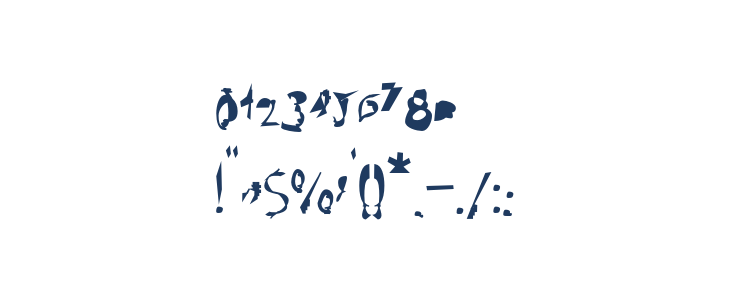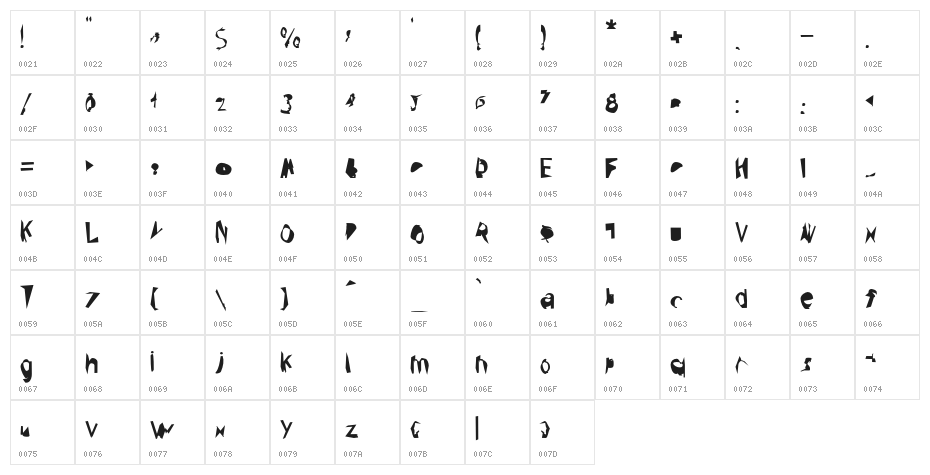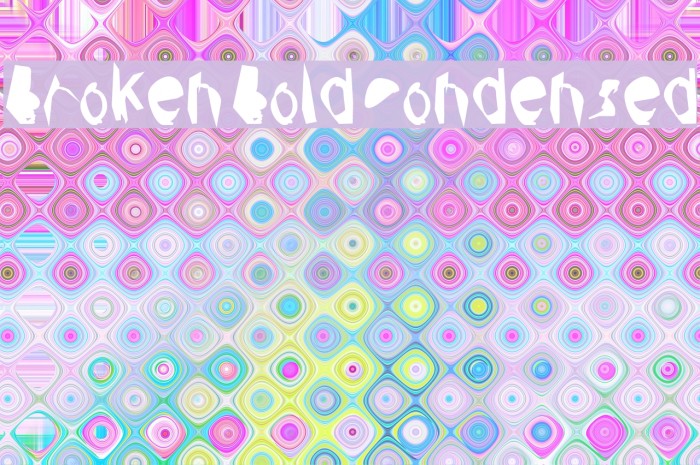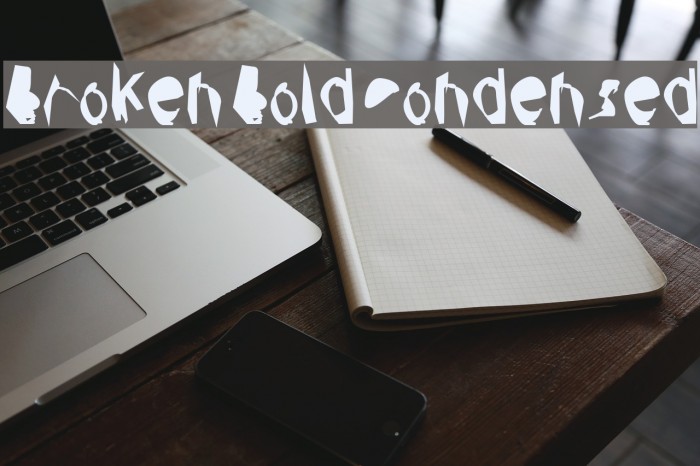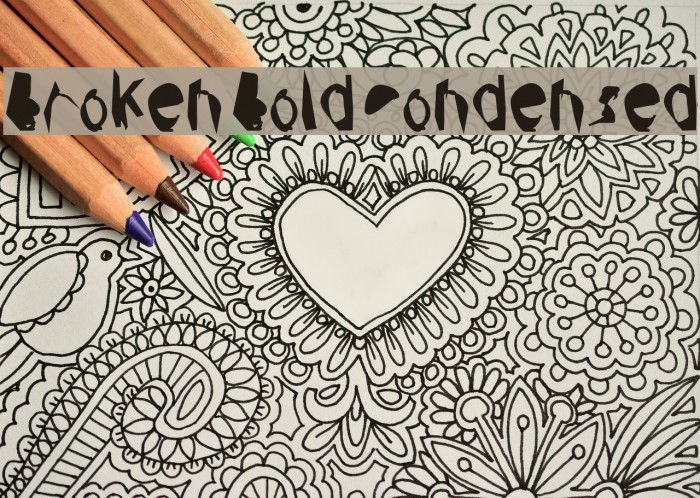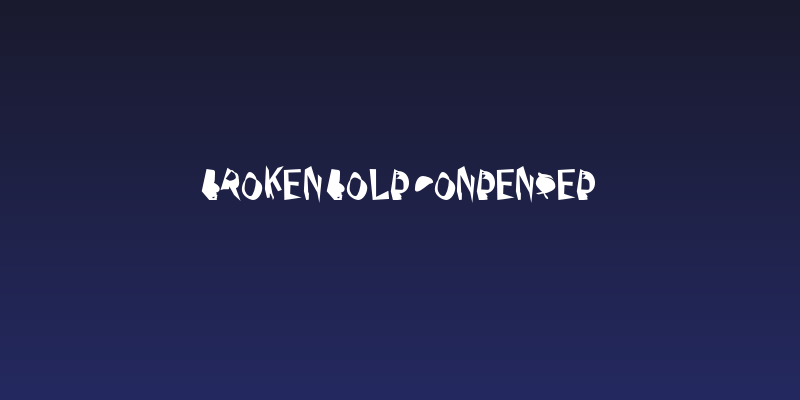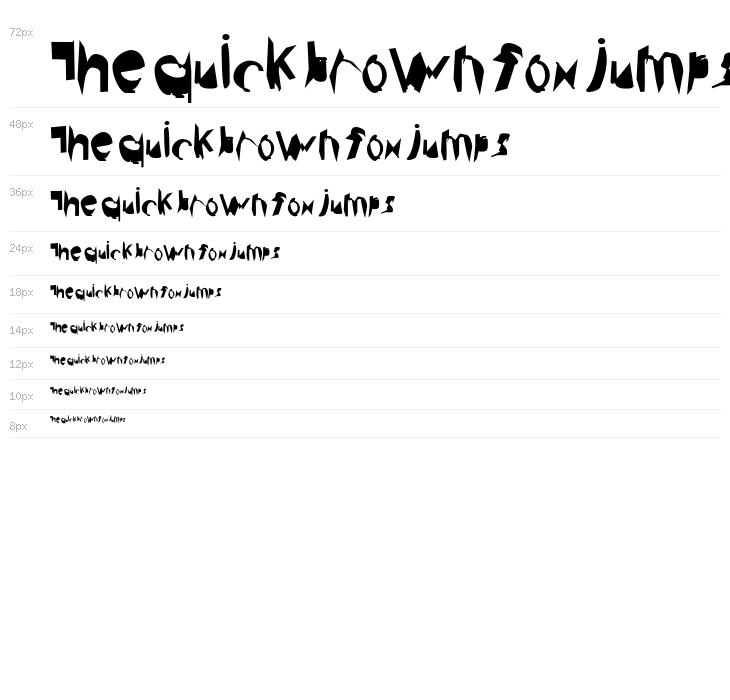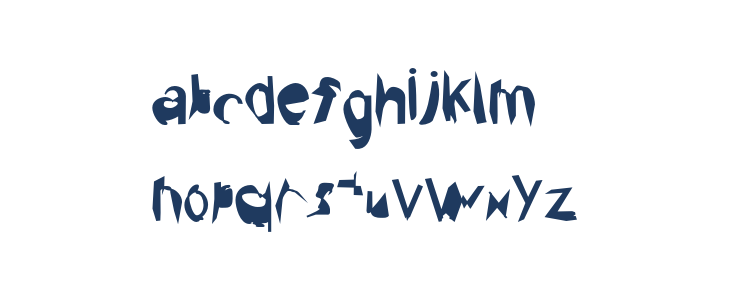
Broken Bold Condensed Font
Broken Bold Condensed Description
This font features a bold and condensed style with a distinctly broken and fragmented appearance. The characters are irregularly shaped, giving a chaotic and edgy feel. The uppercase and lowercase letters maintain a consistent boldness, while the numbers and special characters follow the same fragmented design. The font's unique style makes it stand out, with sharp angles and uneven lines that create a sense of movement and energy. It is highly decorative and unconventional, making it suitable for creative and artistic projects.
| Overall Style | Modern, Edgy |
| Use Case | Headlines, Logos, Artistic projects |
| Proposed Projects | Ideal for album covers, posters, graffiti art, and other creative projects that require a bold and unconventional typeface. |